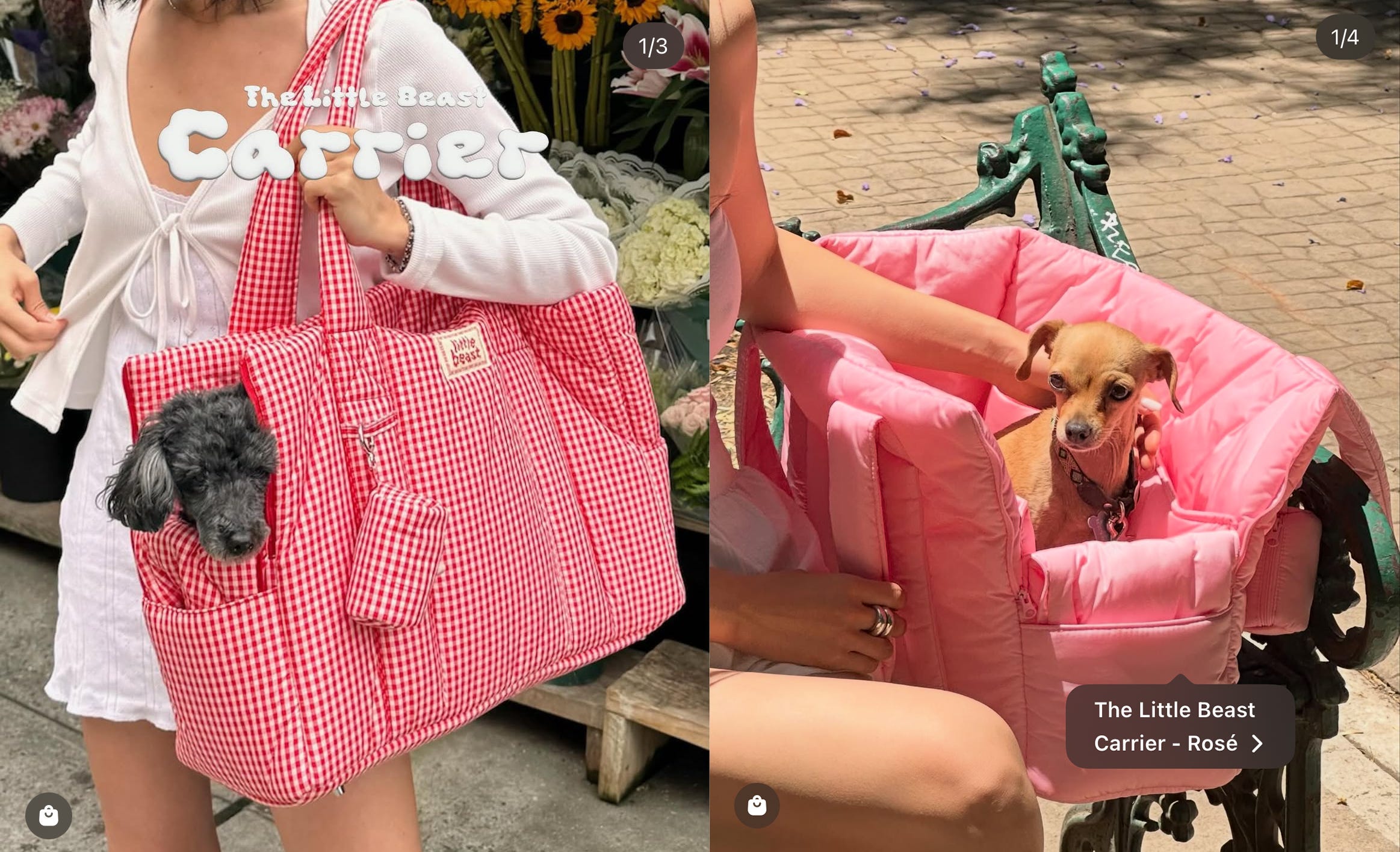
Fonts in Use: Puffie Font x Little Beast’s Stylish and Cute Social Posts
Kind of a perfect puffy match.
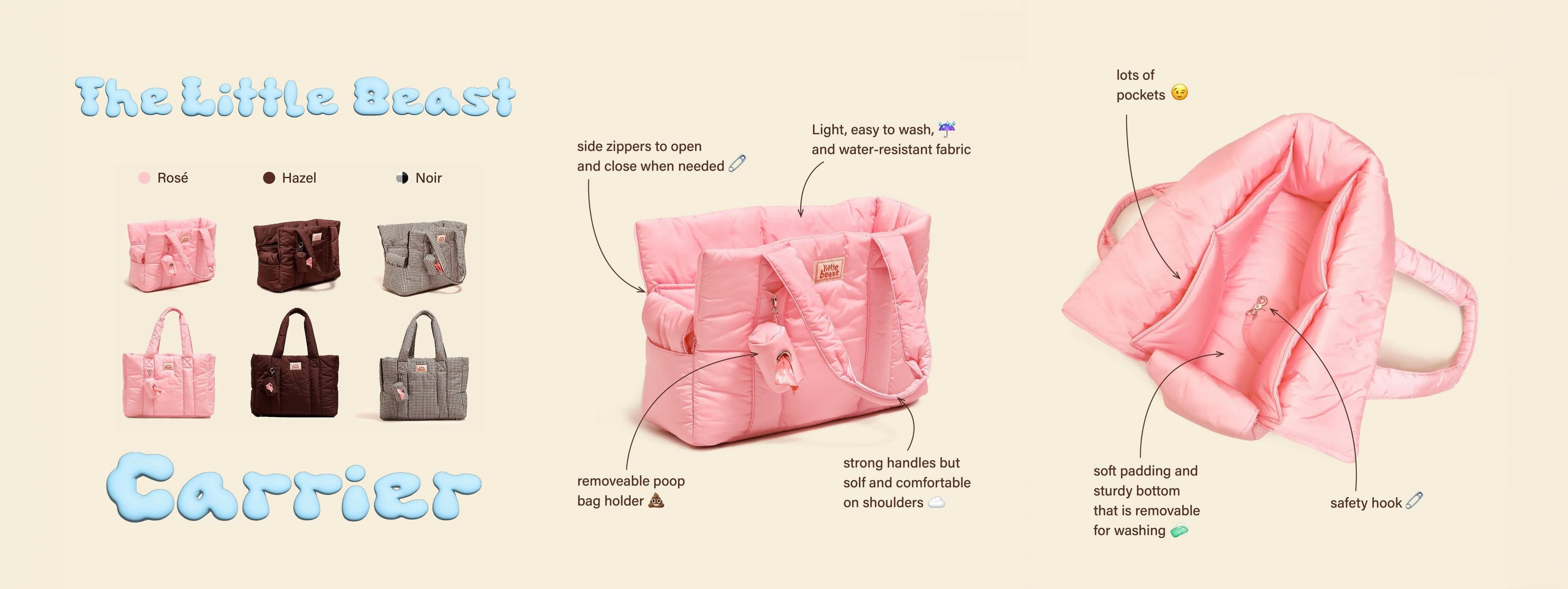
I always love seeing my fonts pop up out in the wild, and this one feels especially fun.
Little Beast is a pet brand known for its super nice, stylish, high-quality clothes and accessories for you and your pet.
I am in love with their brand style and product designs; they often use bright colors and modern, bold shapes in what they create.
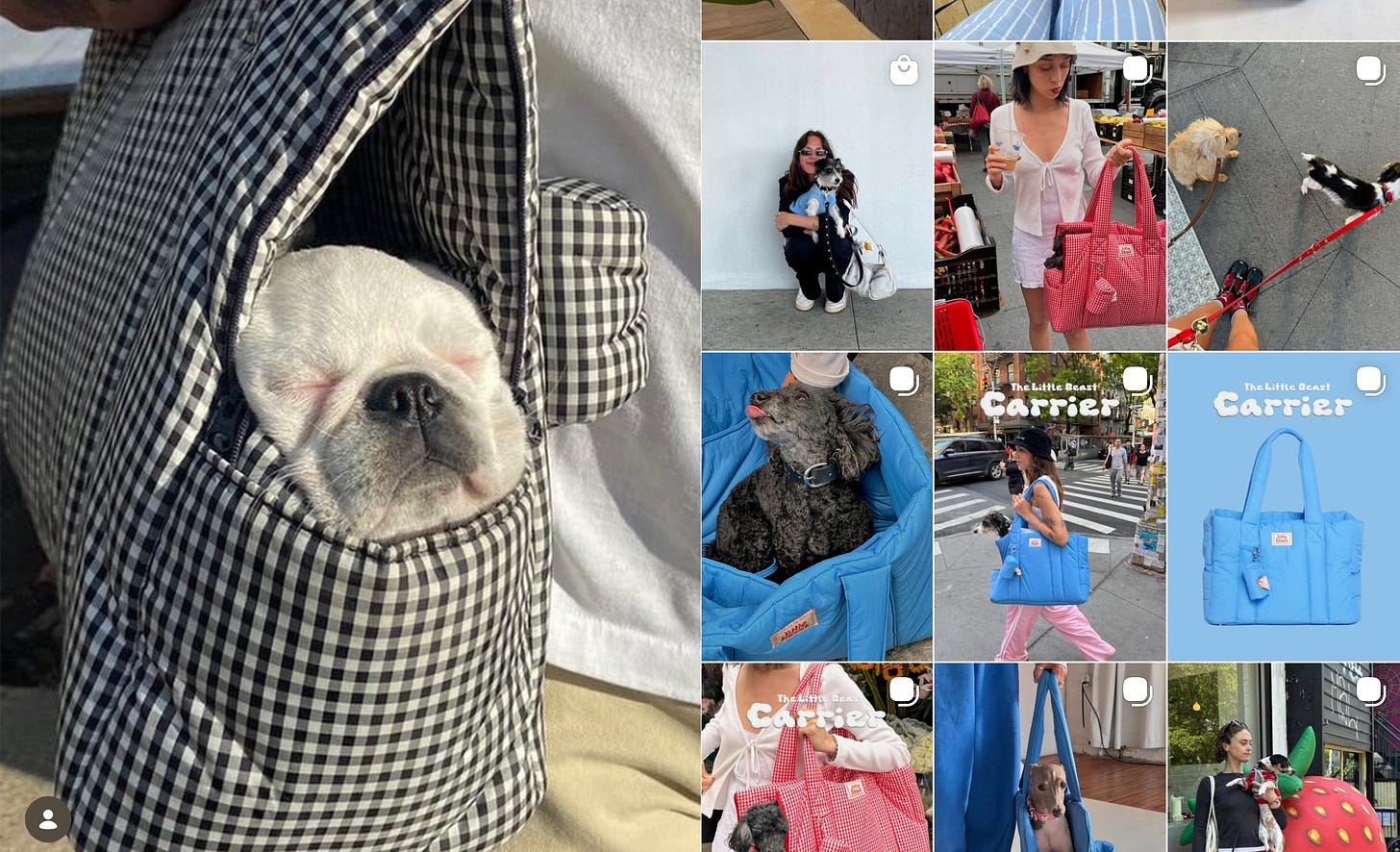
They posted an Instagram series using Puffie font featuring their signature Little Beast Carrier, a bag with a soft, puffy look. I was so excited to see this because I think Puffie, one of my bubble-style fonts, complements their bag and overall style wonderfully.
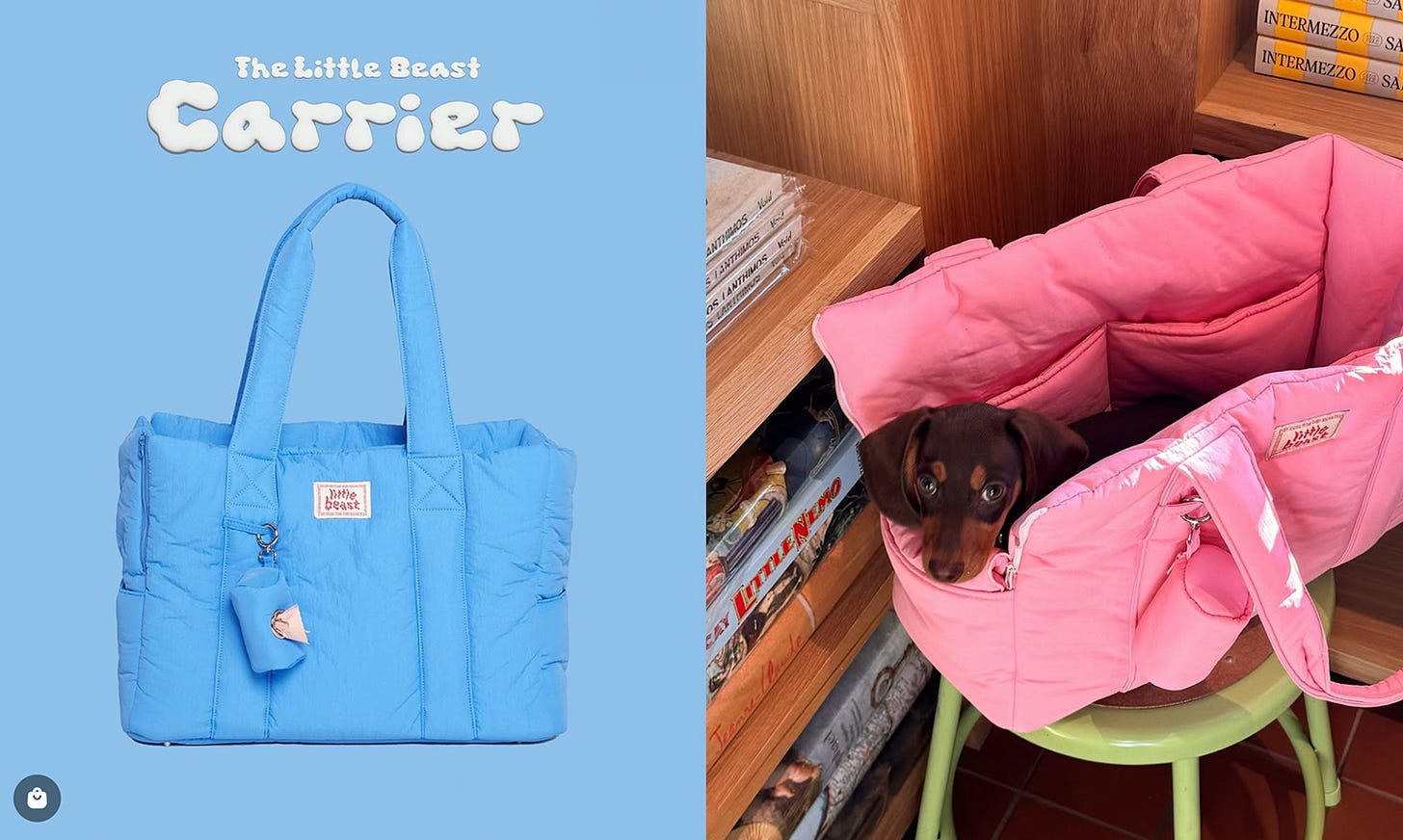
Little Beast has a very playful, stylish brand identity. Even their business name is fun, as I am now thinking lovingly of all the dogs I know as little beasts, which makes me giggle.
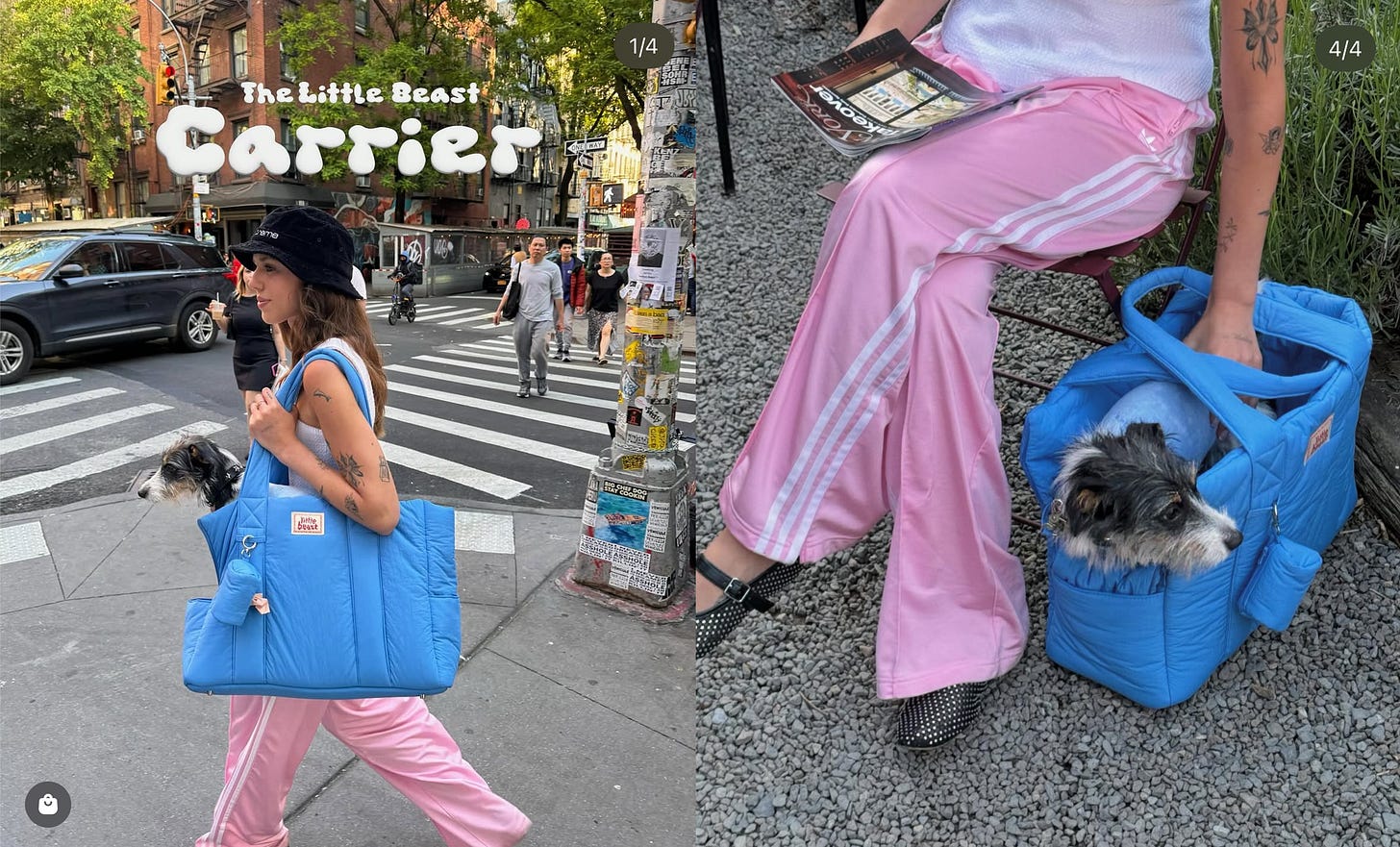
The soft, cloud-like shapes of Puffie’s letters feel right at home next to the padded, cozy shape of the bag. Both feel cute but still modern.
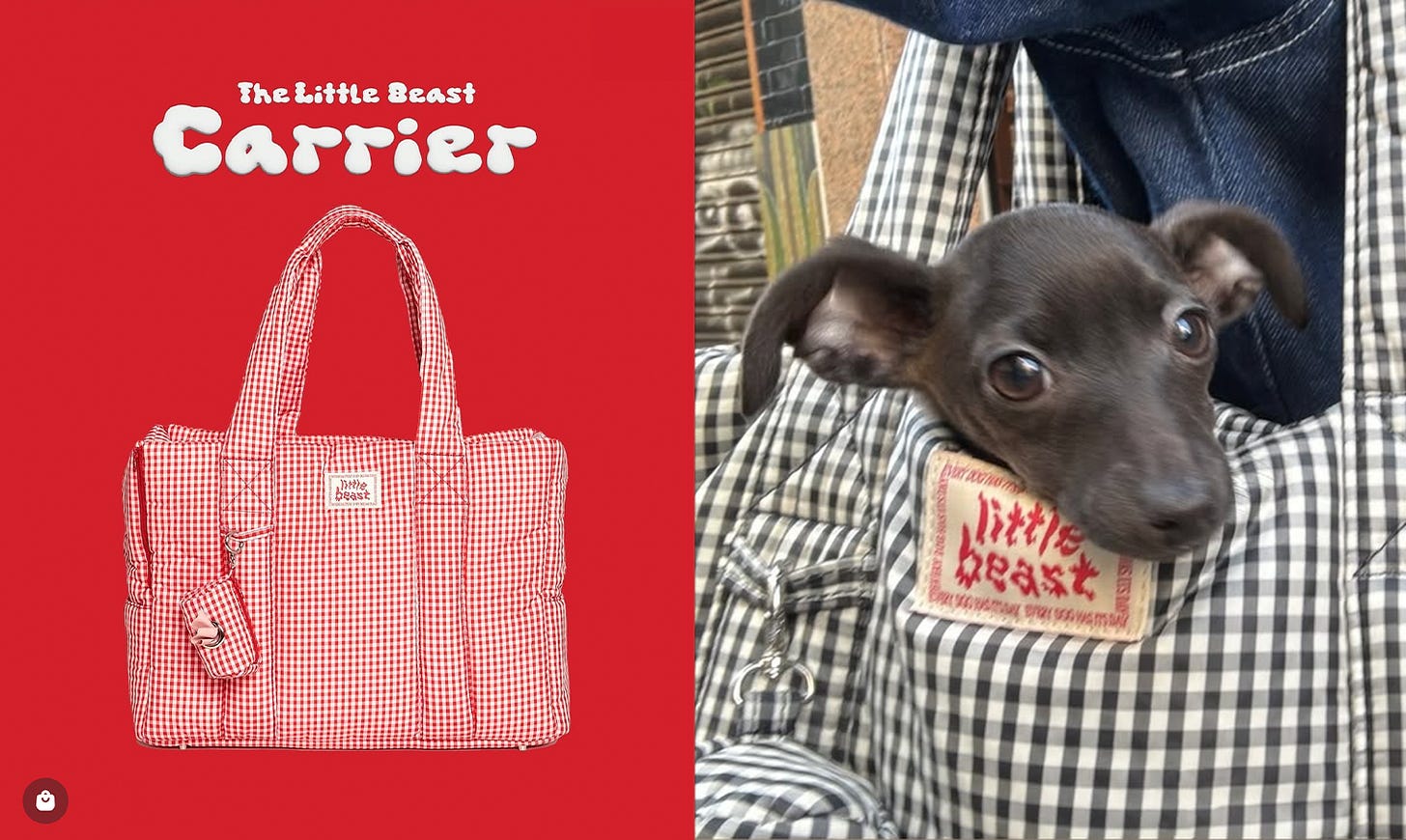
Puffie was originally inspired by puffer jackets. I wanted to create a bubbly, hand-drawn font with personality that still felt structured and thoughtfully designed.
Puffie’s appearance in Little Beast’s Instagram series emphasizes the playful, soft, bold, friendly energy they already have in their branding. Studio Funshop fonts lean into personality and texture, which is why they often pair nicely with brands that want a little character in their visuals.